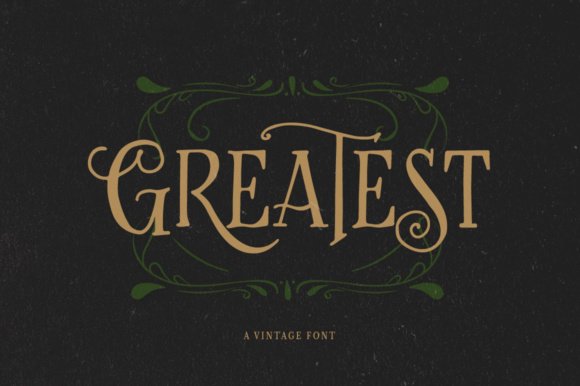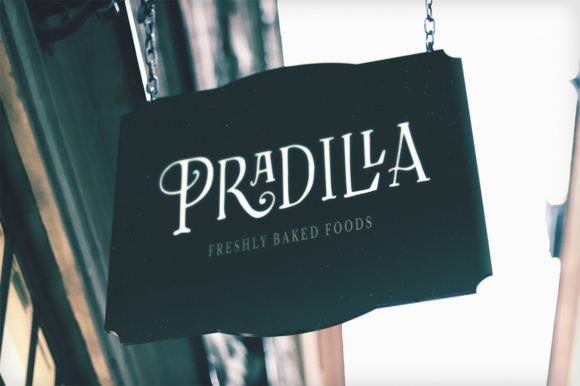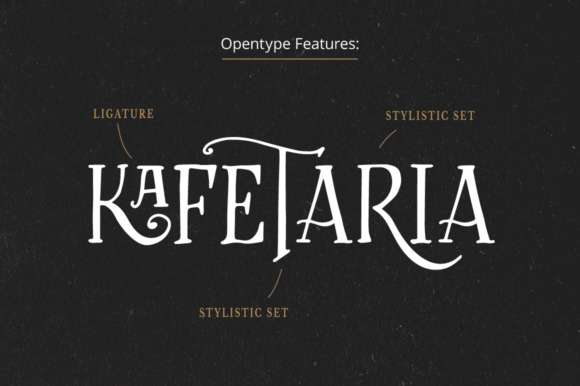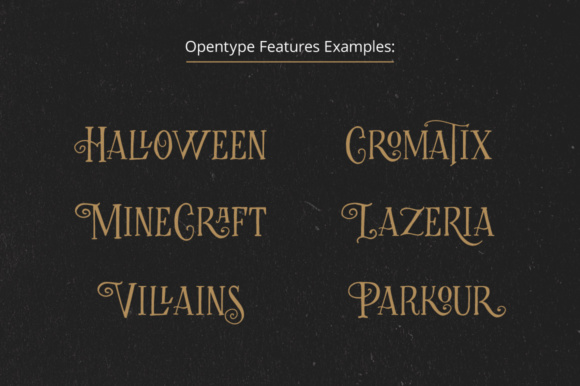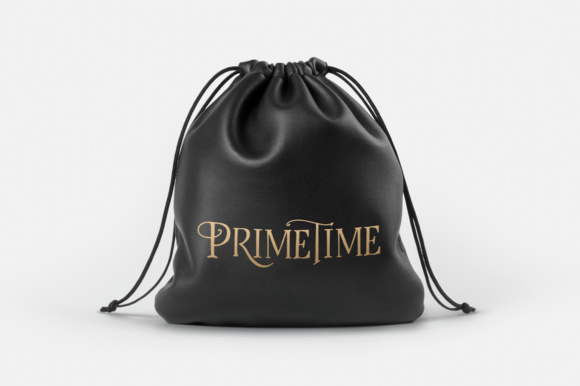
The Timeless Charm of the Greatest Font
Have you ever been working on a design project and stumbled upon that perfect font that instantly transports you to a bygone era? For me, it was a moment of pure creative joy when I discovered the Greatest Font – a vintage hand lettering typeface that embodies the essence of classic nostalgia.
The Greatest Font is a masterful blend of elegance and simplicity, designed to evoke a sense of natural hand-lettering that’s both timeless and relatable. Whether you’re looking to create a vintage-inspired logo, a distressed text effect, or simply want to add a touch of nostalgia to your design, this font is sure to deliver.
As a valuable addition to any designer’s toolkit, the Greatest Font offers a unique opportunity to tap into the emotional resonance of classic typography. With its versatility and charm, it’s no wonder that this font has become a go-to choice for designers seeking to add a touch of authenticity to their work.
Greatest Font Key Features
- Unique Characteristic: Advanced ligature support, allowing for elegant connections between letters, creating a professional and polished appearance
Greatest Font Review
As a designer, I was excited to dive into the “Greatest Font” and see if it lives up to its name. Here’s my honest review:
- Unique and stylish design: The font has a distinctive look that sets it apart from more common fonts.
- Highly legible: The font is easy to read, even at smaller sizes.
- Wide compatibility: The font works well across various devices and platforms.
- Some characters may be inconsistent: I noticed some variations in character design, which can be distracting.
- Limited language support: The font doesn’t include a wide range of language-specific characters.
- Not ideal for large blocks of text: The font can feel overwhelming when used for extended periods.
Overall, the “Greatest Font” is a solid choice for designers looking for a stylish and unique font. While it has some limitations, it’s a great option for headings, titles, and other short-form content. However, for longer blocks of text or projects requiring extensive language support, you may want to consider alternative options.
Tips for Getting the Most Out of Greatest Font
Use Greatest Font in combination with bold or italic styles to add emphasis to your text. Experiment with different font sizes and colors to create visual interest. Use Greatest Font for headings and titles to create a clear hierarchy of information.
Greatest Font is suitable for a wide range of applications, including business presentations, marketing materials, and creative projects. Use it for headings, titles, and body text to create a professional and visually appealing design.